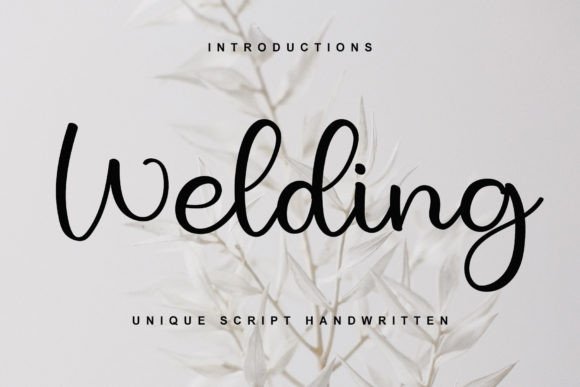
Behold Welding Font - a stroke of bold, beautiful genius! Its sturdy lines cut through the mundane, exuding confidence and charisma. Designed with precision to enhance elegance, this script font demands attention with its unique blend of solid boldness and playful charm.
Unleash the allure of your artistic visions with this modern marvel. With Welding Font, you hold the key to create designs that resonate, projects that ignite passions, and concepts that leave an indelible mark. From heartfelt wedding vows to compelling branding campaigns, this masterful font is your secret weapon to capture hearts and spark imaginations.
With its thick curves and fluid movement, Welding Font dances across the screen. Its seamless flow is a joy to behold, captivating viewers with its grace and poise. Whether you're crafting logos that command respect or designing websites that exude sophistication, let this font lead the way.
Welding Font is more than just a font; it's an experience. Dive into a world of creativity, where your ideas take shape with effortless flair. Experiment with different design combinations, let your imagination run wild, and witness the birth of masterpieces.
So step into the spotlight with Welding Font, the ultimate weapon for creative domination. Embrace its bold strength, revel in its undeniable charm, and watch as your designs transform into works of art that inspire, captivate, and leave a lasting impression.